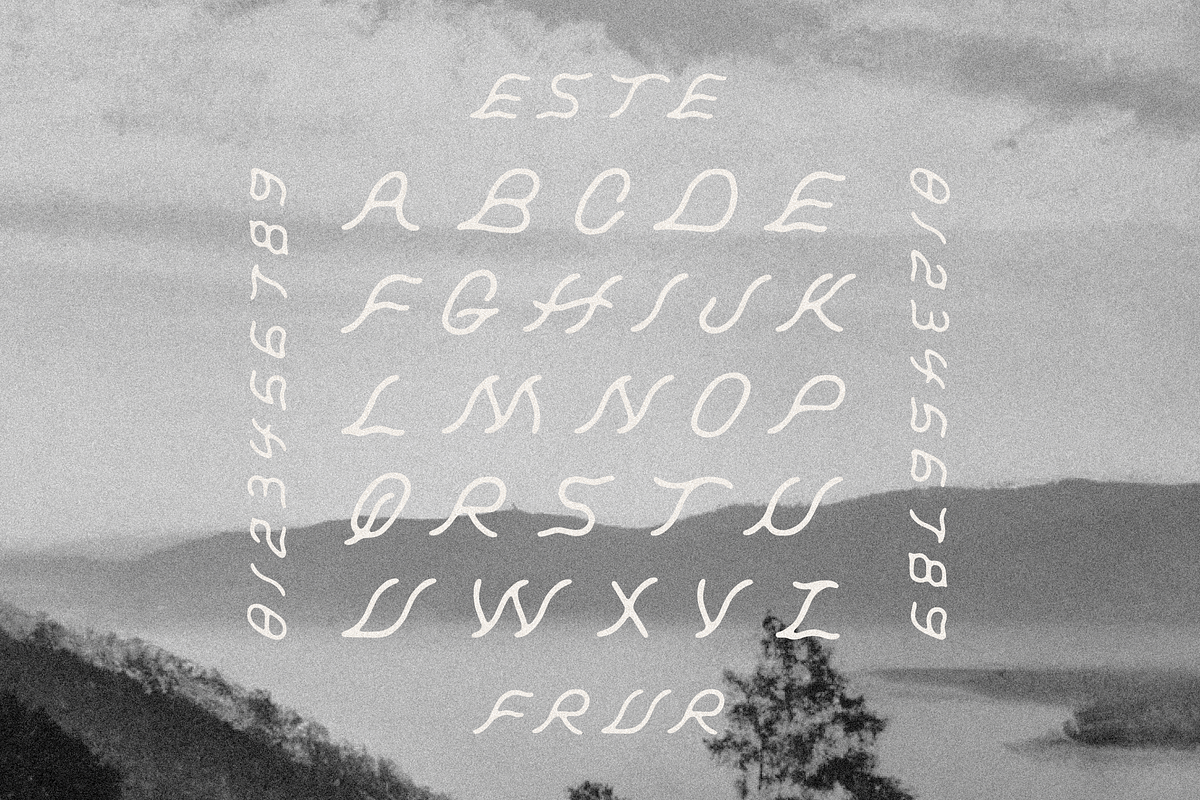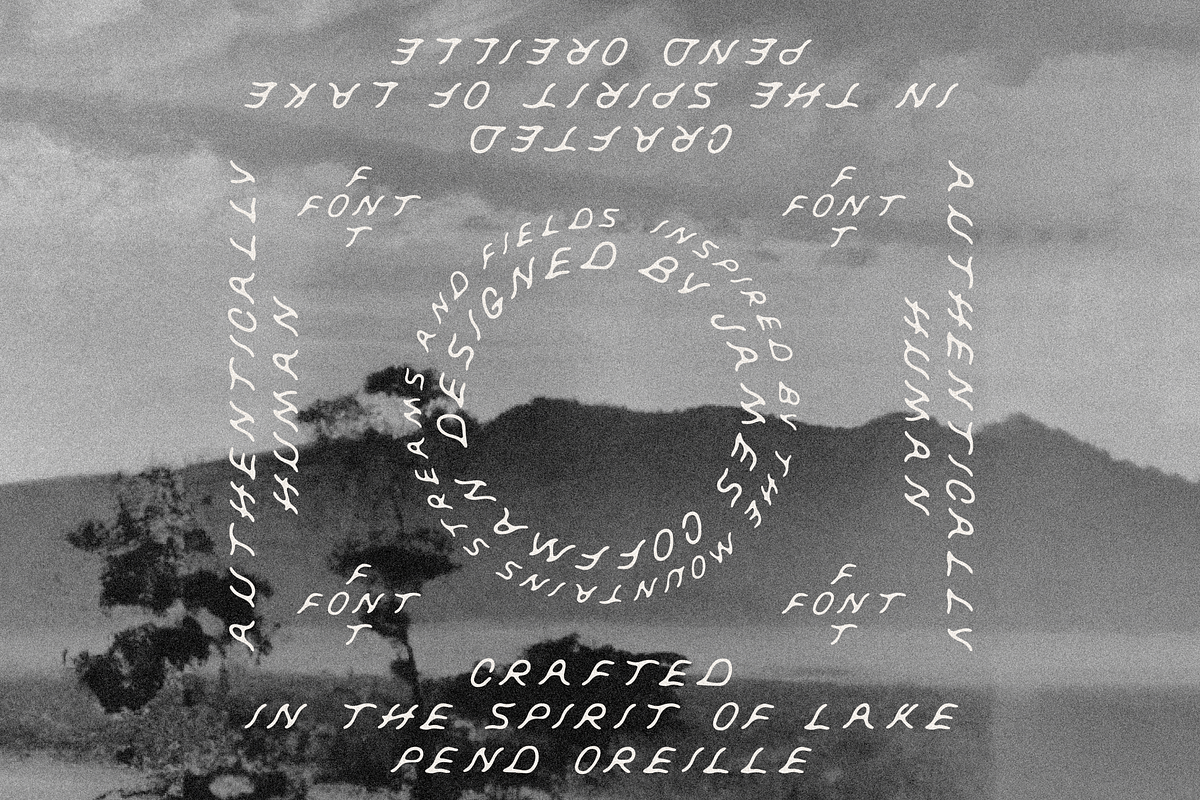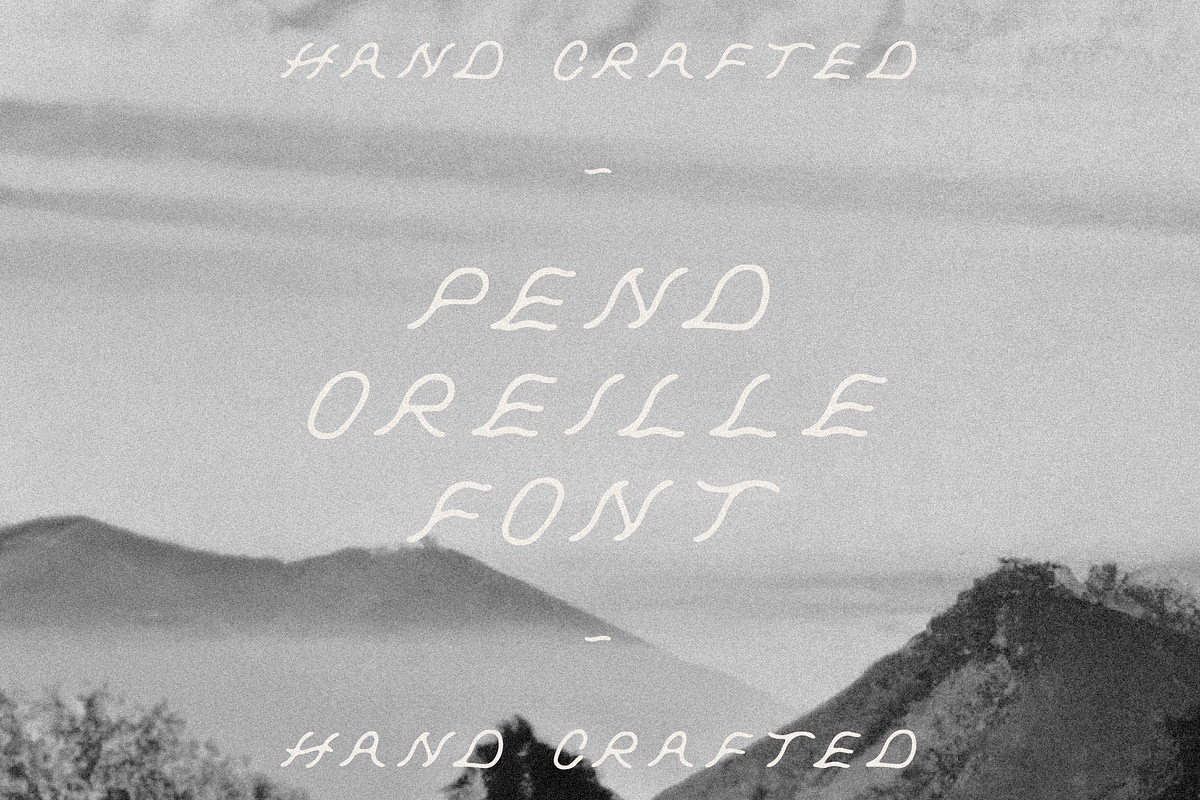
Pend Oreille Font
Each summer since I was small my family travels to North Idaho for a few weeks. The original purpose was to visit my grandparents who moved from San Fransico in the 80’s to build a house nestled in the hills outside Sandpoint, overlooking the seemingly lost to time Lake Pend Oreille. Though the reason for the visits have changed since they passed on, the stillness and peace that comes with each trip remains the same. This typeface is a reflection of the freeness and simplicity I feel whenever there. I hope it captures these feelings and passes them on to you in some small way through each use.
Pend Oreille is a fully functional font including numbers, punctuation, and additional glyphs and characters from a variety of languages.